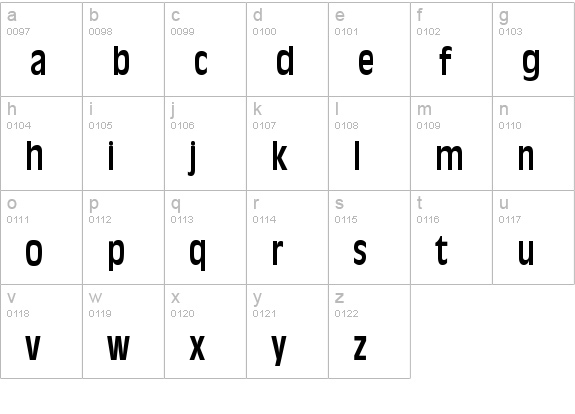
Antique Olive Condensed Regular Font Details
Antique Olive Condensed Regular is the standard, neutral, condensed-width variant in the Antique typeface family \xE2\x80\x94 well suited to general body text, paragraphs, and standard typographic work.
The Antique Olive Condensed Regular font exudes a timeless elegance with its refined and sophisticated design. Its slender and elongated letterforms add a touch of grace and sophistication to any project. This font is perfect for creating a sense of classic charm and sophistication in your designs. And the best part is, Antique Olive Condensed Regular font is available for free download at FontsMarket.com! So you can easily add this elegant typeface to your collection without any cost. Whether you're working on a vintage-inspired project or looking to add a touch of class to your designs, Antique Olive Condensed Regular font is a perfect choice. Download it today and elevate your designs with its timeless beauty.